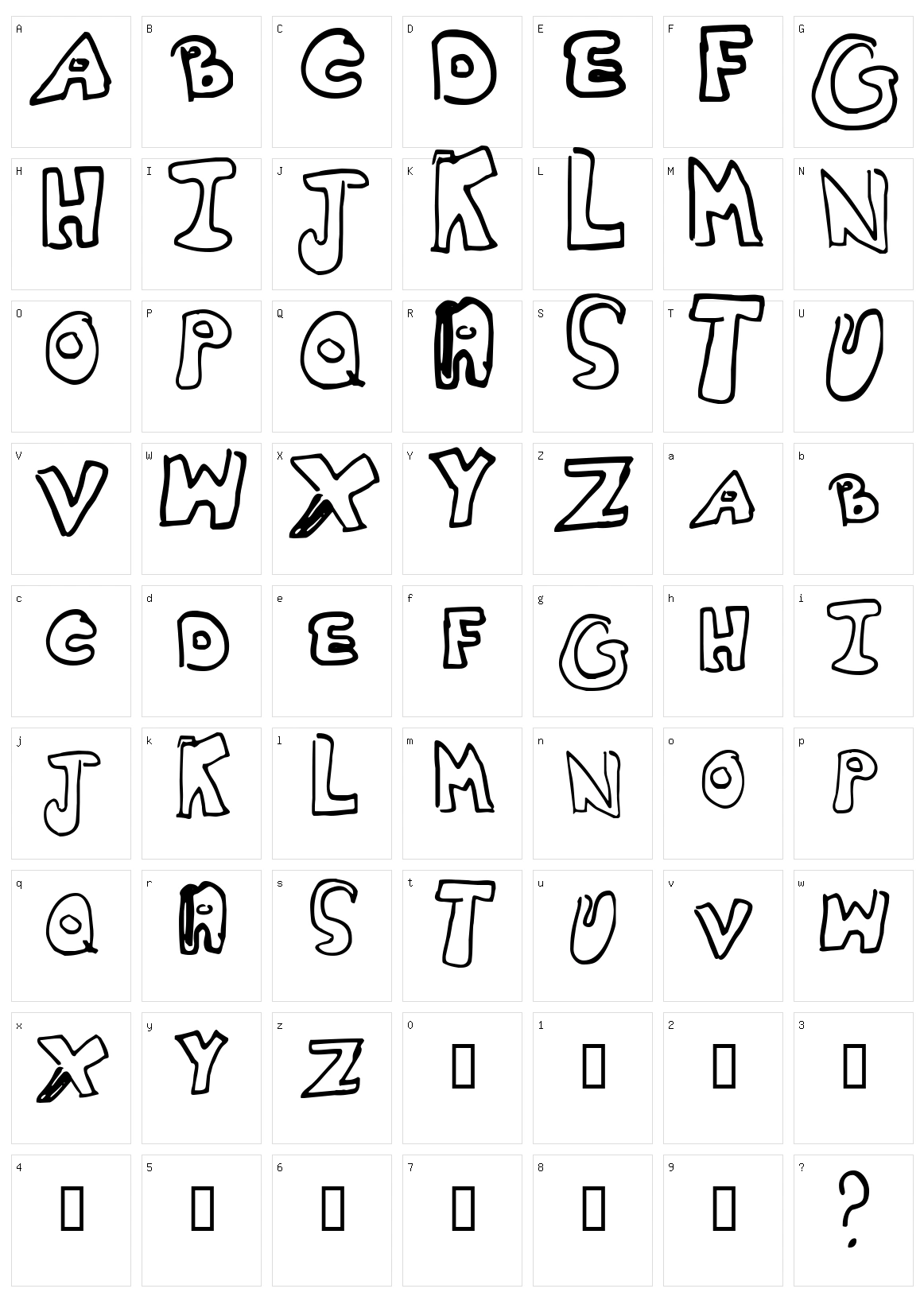
The free font Whitney2 is carefully designed by Your Own Font, showcasing a thoughtful balance of creativity and usability and falls under the Cartoon font style. When you download the ZIP file, it contains only 25.34 KB of font files, making it lightweight and quick to download. Please review the license details below to understand permitted usage and distribution rights. If license information is not available, we recommend using this font for personal projects only or contacting the author directly for commercial usage permissions.